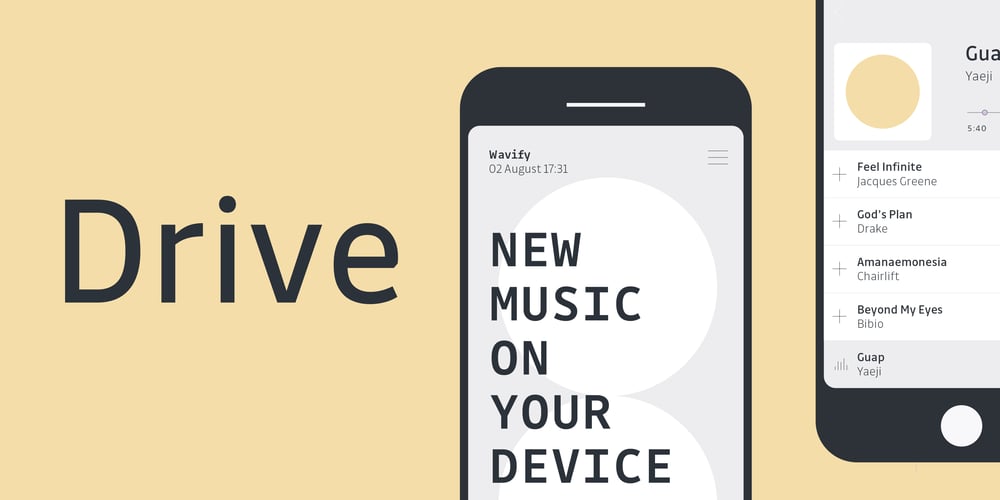
Drive
Drive font
Drive Font Family was designed by Jérémie Hornus, Elliott Amblard and published by Black Foundry. Drive contains 18 styles and family package options. Time is valuable in corporate environments. Unlike the text in books, business communication and financial reports aren’t necessarily read for pleasure. Their contents must be understood quickly. When it comes to commerce, the typeface just can’t afford to get in the way. Drive is a family of sans serif fonts. To help facilitate more economic typesetting, its space-saving letterforms help fit more text on a line, without sacrificing any readability. Since Drive is designed in a humanist style, the counterforms inside its letters are open; texts set in Drive remain clear, even under adverse reading conditions.The Drive family includes nine weights, ranging from the very thin Hairline weight through a heavy Extrabold. Every weight has corresponding upright and italic fonts. Characters are drawn with virtually-monolinear strokes; each part of any given letterform is equally sharp. Thanks to the family’s wide number of fonts, users can combine multiple weights together to increase contrast within a design’s text. While Drive is optimised for use at smaller sizes, its extreme weights are well-suited for setting headlines and other large texts. Drive is suitable for print-based designs, as well as for on-screen usage.Each of Drive’s 18 fonts has over 500 glyphs in its character set. This substantial range includes diacritics for all European languages written with the Latin script, as well as several directional arrows and pre-composed fractions. The numerals come in various typographical options: the fonts have both proportional and tabularly-spaced lining figures, proportionally-spaced oldstyle figures, and full sets of numerators, denominators, superscripts, and subscripts.